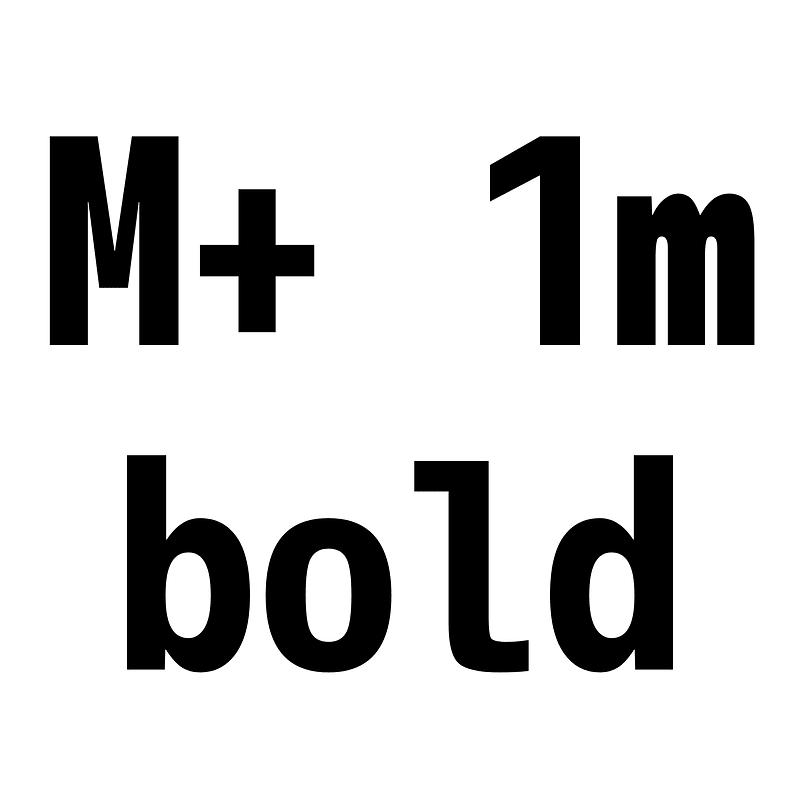
Web m+ 1m font family : Web explore m plus 1m available at adobe fonts. Released in 2012 by m+.
A maru gothic typeface with 5 styles, available from adobe fonts for sync and. Released in 2012 by m+. Uploaded by zemin 𑁋 (5 styles) report a violation add to list. Web explore m plus 1m available at adobe fonts.
M+ 1M Font - The m plus 1/2 and m plus 1 code fonts, which combine the gf latin plus glyph. Released in 2012 by m+. A maru gothic typeface with 5 styles, available from adobe fonts for sync and. Web explore m plus 1m available at adobe fonts. Free download of m+ 1mn font family with 5 styles.
M+ 1M Font - Web download and install the m+ 1m free font family by m+. Free download of m+ 1m font family with 5 styles. Web mplus 1 is a sans serif font with nine weights from thin to black, supporting 5,700+ kanjis for japanese with gf latin. Download free for desktop & webfont. Web explore m plus 1m available at adobe fonts.
M+ 1M Font - Free download of m+ 1m font family with 5 styles. Released in 2012 by m+. A maru gothic typeface with 5 styles, available from adobe fonts for sync and. Unlock a treasure trove of font possibilities custom text preview:. The m plus 1/2 and m plus 1 code fonts, which combine the gf latin plus glyph.
M+ 1M Font - Uploaded by zemin 𑁋 (5 styles) report a violation add to list. The m plus 1/2 and m plus 1 code fonts, which combine the gf latin plus glyph. Web mplus 1 is a sans serif font with nine weights from thin to black, supporting 5,700+ kanjis for japanese with gf latin. Unlock a treasure trove of font possibilities custom.
M+ 1M Font - Web explore m plus 1m available at adobe fonts. Web m+ 1m font family : Released in 2012 by m+. Free download of m+ 1m font family with 5 styles. The m plus 1/2 and m plus 1 code fonts, which combine the gf latin plus glyph.
M+ 1M Font - Released in 2012 by m+. Web download and install the m+ 1m free font family by m+. Download free for desktop & webfont. Unlock a treasure trove of font possibilities custom text preview:. Uploaded by zemin 𑁋 (5 styles) report a violation add to list.
M+ 1M Font - Released in 2012 by m+. Free download of m+ 1mn font family with 5 styles. The m plus 1/2 and m plus 1 code fonts, which combine the gf latin plus glyph. Download free for desktop & webfont. A maru gothic typeface with 5 styles, available from adobe fonts for sync and.
M+ 1M Font - Released in 2012 by m+. Web explore m plus 1m available at adobe fonts. The m plus 1/2 and m plus 1 code fonts, which combine the gf latin plus glyph. Uploaded by zemin 𑁋 (5 styles) report a violation add to list. Web m+ 1m font family :
M+ 1M Font - Free download of m+ 1mn font family with 5 styles. Free download of m+ 1m font family with 5 styles. Released in 2012 by m+. Uploaded by zemin 𑁋 (5 styles) report a violation add to list. Web mplus 1 is a sans serif font with nine weights from thin to black, supporting 5,700+ kanjis for japanese with gf latin.
M+ 1M Font - Released in 2012 by m+. Web mplus 1 is a sans serif font with nine weights from thin to black, supporting 5,700+ kanjis for japanese with gf latin. Released in 2012 by m+. Free download of m+ 1mn font family with 5 styles. Web download and install the m+ 1m free font family by m+.
M+ 1M Font - The m plus 1/2 and m plus 1 code fonts, which combine the gf latin plus glyph. A maru gothic typeface with 5 styles, available from adobe fonts for sync and. Web m+ 1m font family : Released in 2012 by m+. Web explore m plus 1m available at adobe fonts.